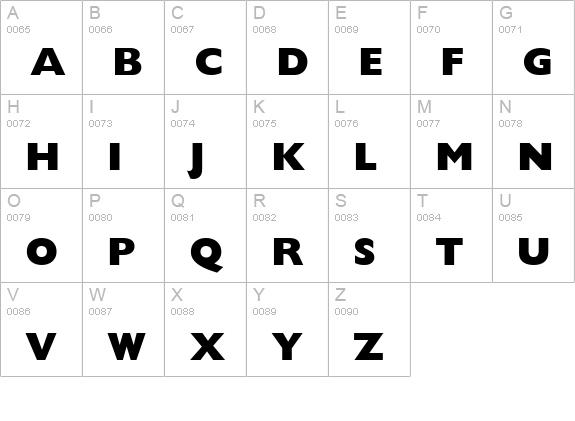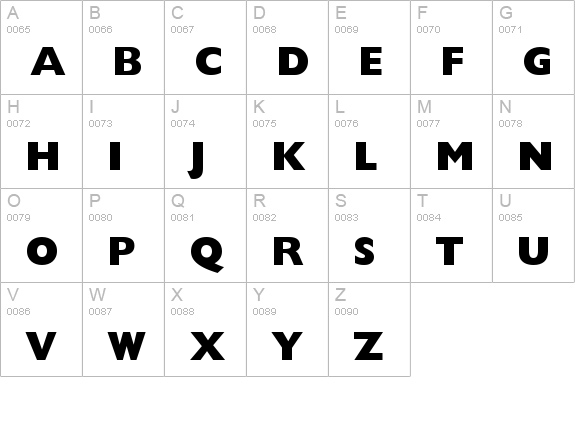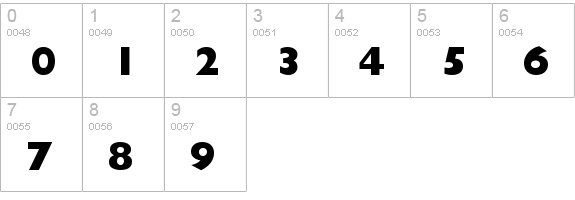
Garrison ExtraBold Sans BOLD is an extra-heavy, attention-grabbing variant in the Garrison typeface family \xE2\x80\x94 well suited to high-impact headlines, posters, and bold branding.
Garrison ExtraBold Sans BOLD font is a bold and striking typeface that commands attention with its strong and powerful presence. The thick, heavy strokes give this font a confident and modern look, making it perfect for headlines, titles, and any design that requires a bold statement. With its clean lines and sharp edges, Garrison ExtraBold Sans BOLD font exudes professionalism and sophistication, making it a versatile choice for a wide range of design projects. Whether you're creating branding materials, advertising campaigns, or editorial layouts, this font will make your text stand out and leave a lasting impression. Best of all, Garrison ExtraBold Sans BOLD font is available for free download at FontsMarket.com. This means you can easily access this high-quality typeface without any cost, making it a valuable addition to your font library. Don't miss out on the opportunity to elevate your designs with the bold and impactful Garrison ExtraBold Sans BOLD font.